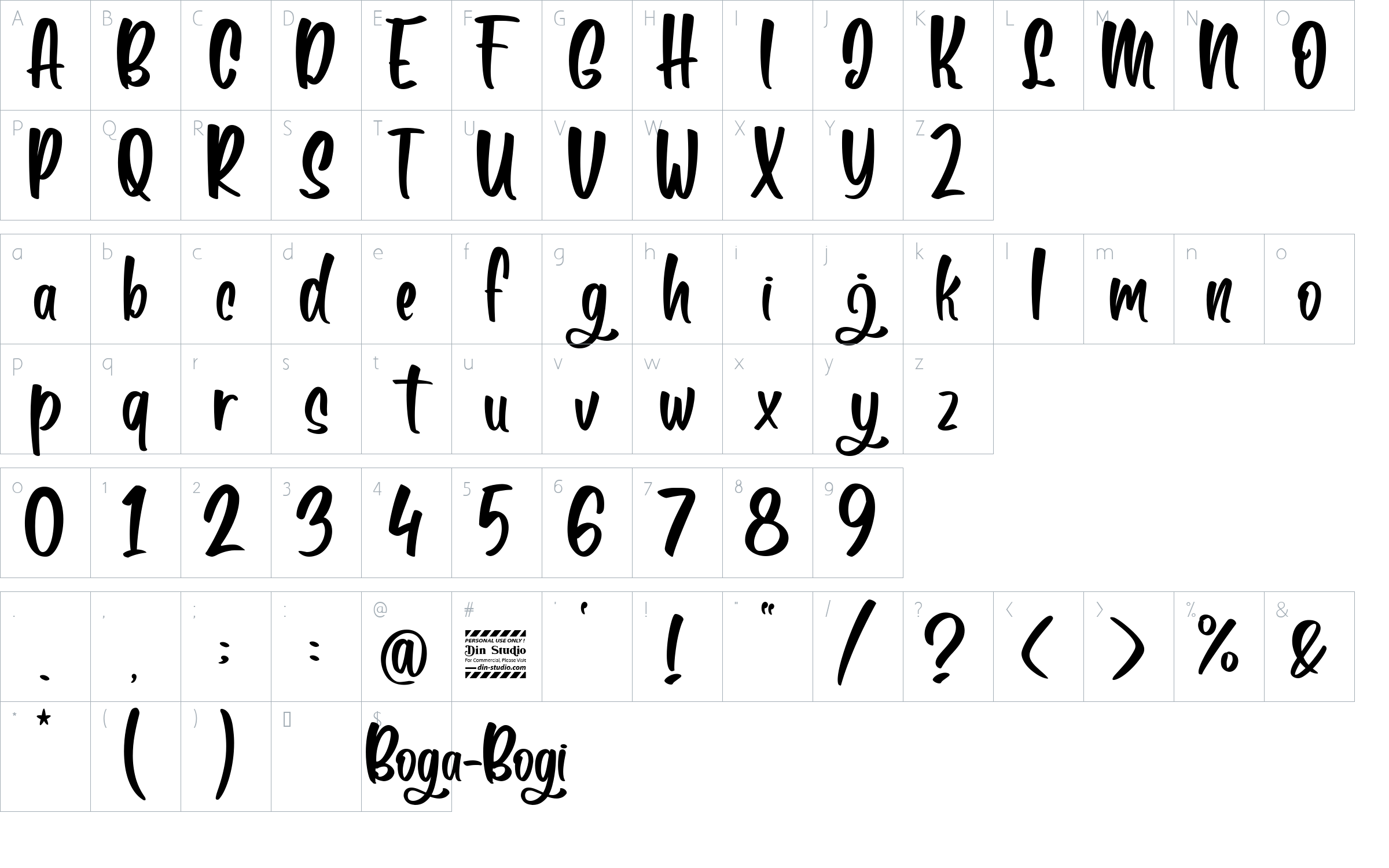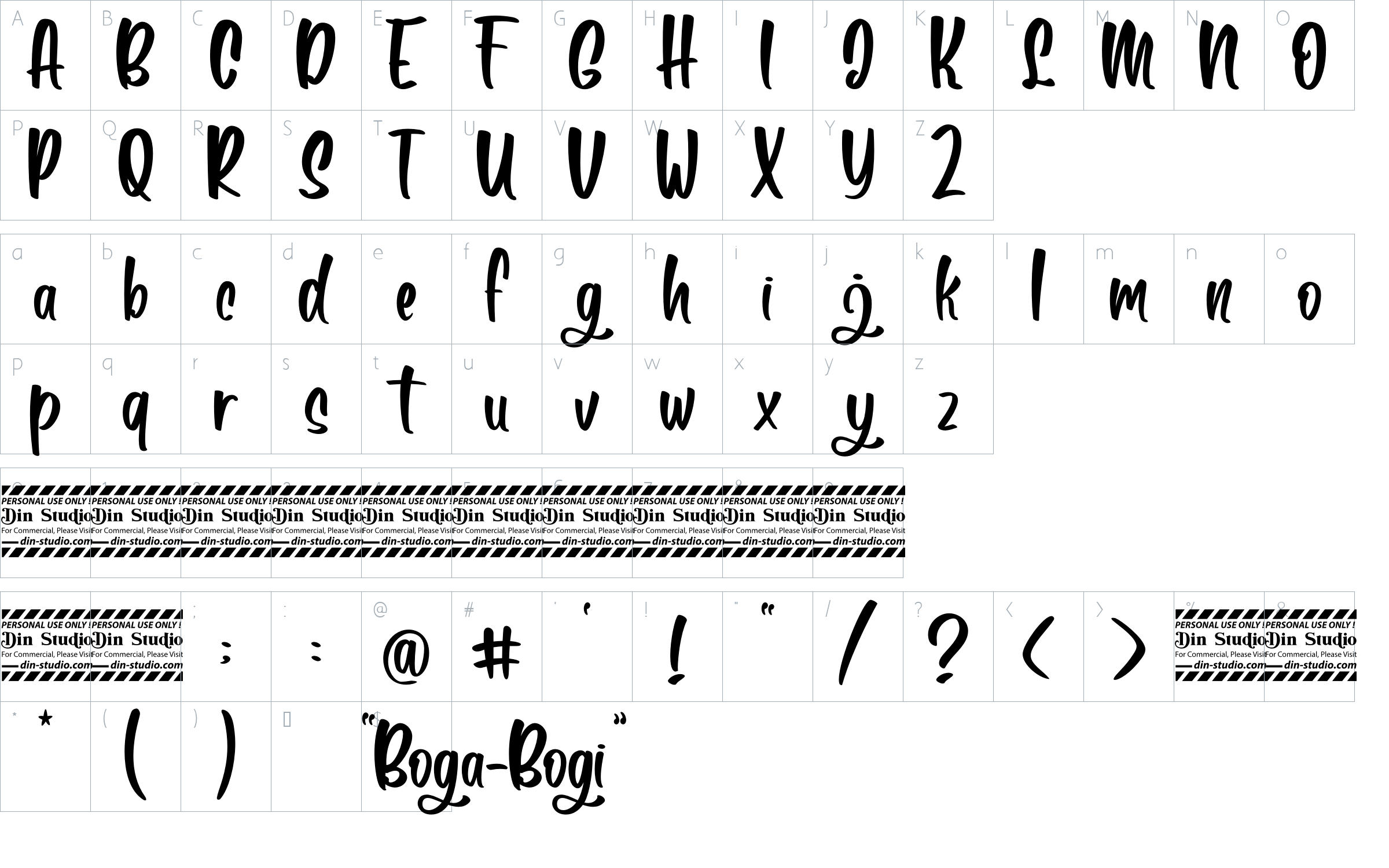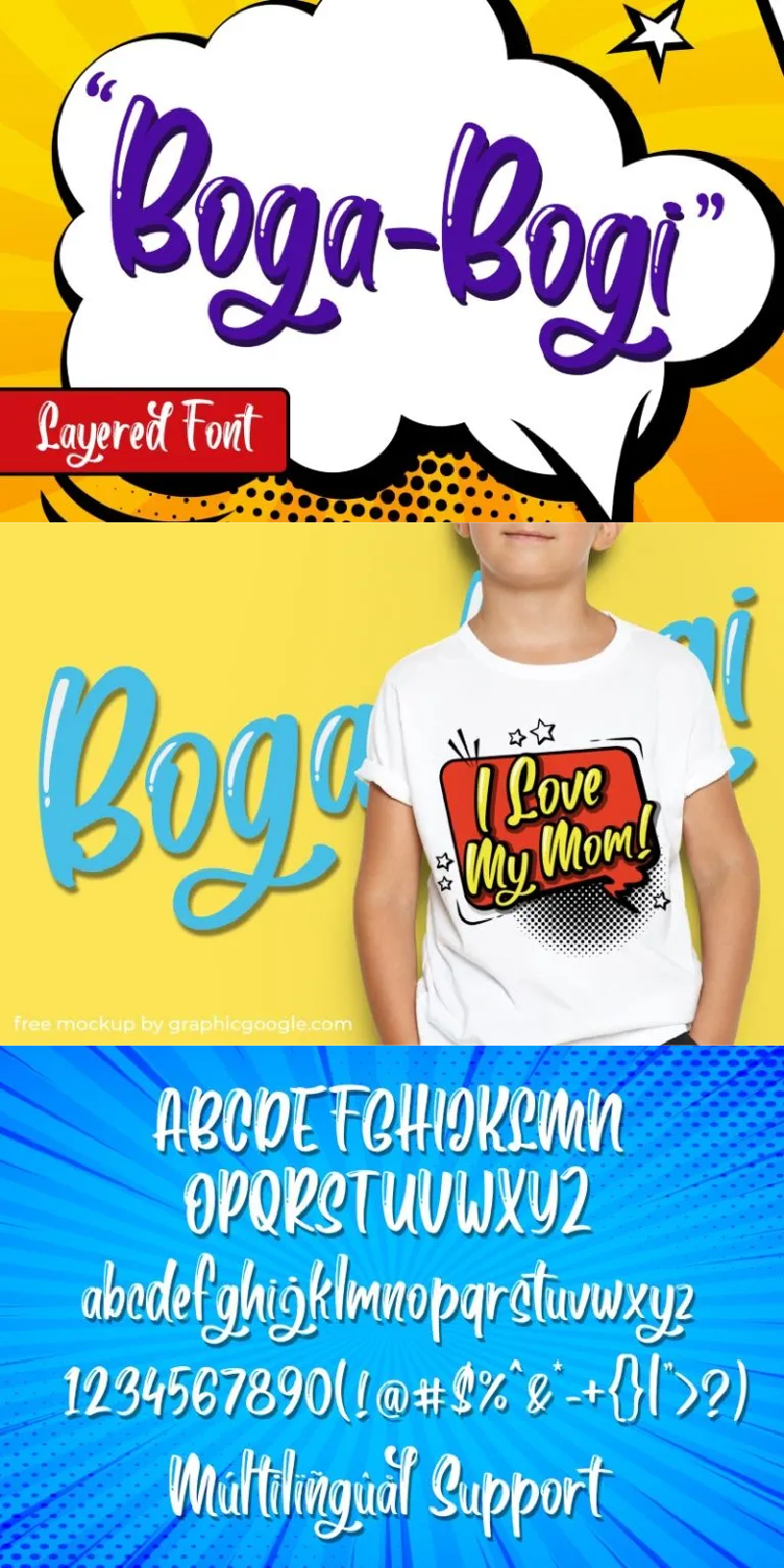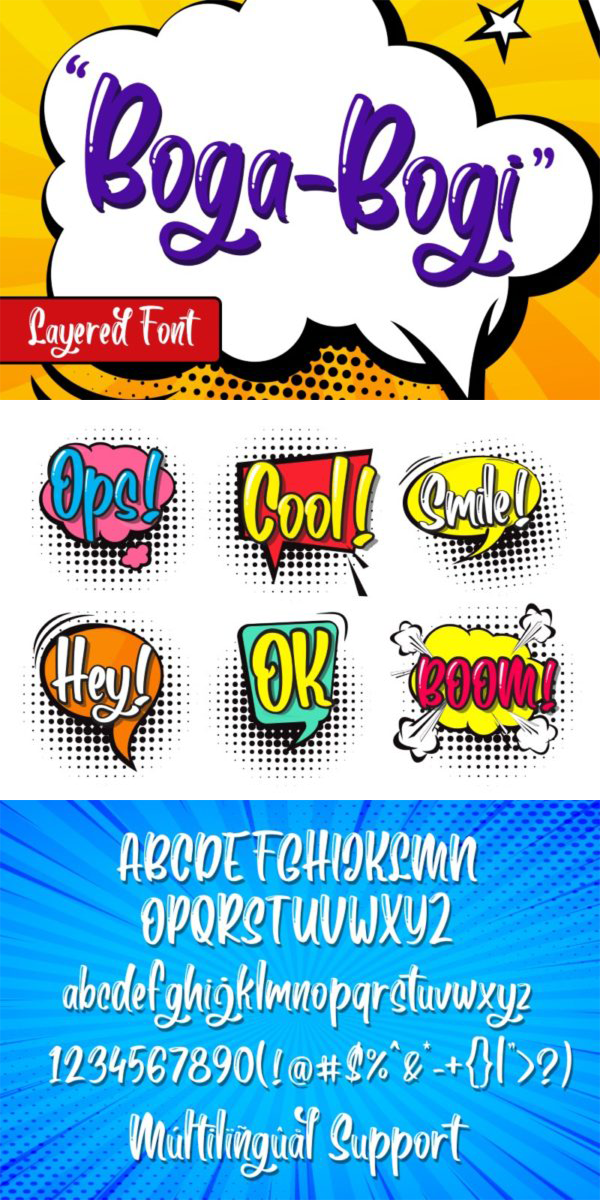
Boga-Bogi Font
About Boga-Bogi
This font suitable for your design project especially for branding, t-shirt printing, advertising, social media campaign, lettering, and so much more. The font contains a full set of lowercase and uppercase letters, numerals, and punctuation.